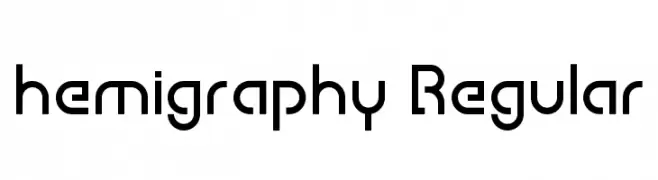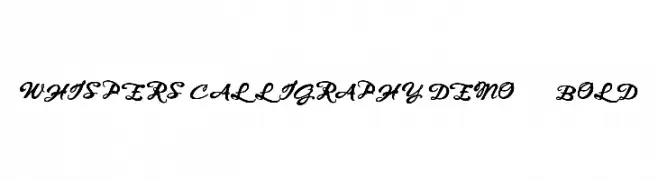
A bold, artistic font with a hand-painted, brush calligraphy style.
A bold, hand-drawn font inspired by traditional East Asian calligraphy.
A bold, comic-inspired font with a playful, three-dimensional effect and Japanese calligraphy influences.
An elegant, cursive font with ornate flourishes and a classic calligraphy feel.
A playful handwritten font with a casual and energetic style.
An ornate script font with intricate loops and flourishes, reminiscent of traditional calligraphy.
A modern serif font with clean lines and elegant serifs.
A bold, decorative font with a vintage Western style.
A modern, geometric sans-serif font with a clean and approachable design.
A monospaced font with a classic typewriter style and medium contrast.
A bold, rounded font with a playful yet sophisticated style.
A bold, modern sans-serif font with a clean and balanced design.
A clean, modern sans-serif typeface with geometric letterforms and consistent stroke width.
A bold, modern sans-serif font with a slightly condensed width and clean lines.
A modern, light, and condensed sans-serif font with excellent legibility.
A modern, clean sans-serif font with a slightly condensed style.
A playful, hand-drawn font with tall, narrow letters and a whimsical style.
A playful, handwritten font with tall, narrow letters and a bold, casual style.
A modern, geometric sans-serif font with a clean and professional appearance.
A bold, modern font with thick, uniform strokes and high readability.
A bold, angular font inspired by Japanese calligraphy with a modern edge.
An ornate, whimsical font with intricate swirls and loops, reminiscent of hand-drawn calligraphy.
A camera symbol icon font for digital photography interfaces.
An ornate, decorative script font with vintage calligraphy and modern grunge elements.
A decorative script font with flowing, hand-drawn calligraphy style.
A bold, impactful typeface with thick strokes and strong presence.